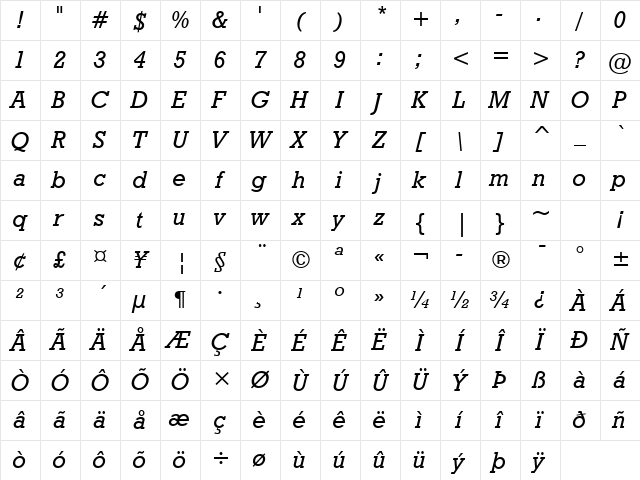
GeoSlb712 Md BT Medium Italic
GeoSlb712 Md BT Family
GeoSlb712 Md BT Medium Italic
Complete GeoSlb712 Md BT Medium Italic glyph index. Displaying only characters natively supported by GeoSlb712 Md BT Medium Italic font.
Design Context for GeoSlb712 Md BT
GeoSlb712 Md BT is a composed and adaptable typeface that performs quietly and consistently across a wide range of design contexts. The slanted form adds forward momentum and visual energy.
Pro Tip: Use GeoSlb712 Md BT for emphasis, pull quotes, and subheadings where its slanted energy can add rhythm to the layout.